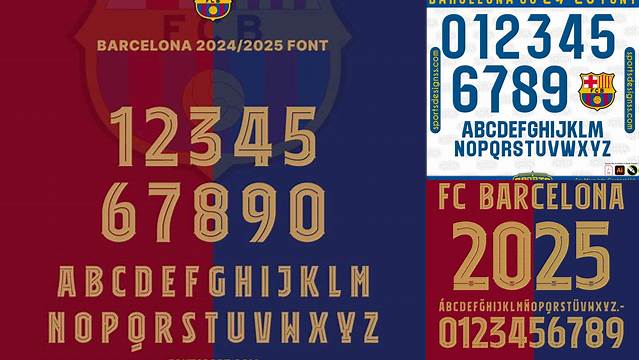
Barcelona 24/25 Font: Free Download Guide
Hey football fanatics and design enthusiasts! Are you looking to capture the iconic look of the Barcelona 24/25 season? The font used on their jerseys is a crucial part of that, and we're here to guide you through everything you need to know about getting your hands on it. This comprehensive guide will cover where you can find Barcelona 24/25 fonts for free download, explore different font styles used by the club throughout history, and delve into the specifics of the current season's font. We'll also touch on how you can use these fonts for your personal projects, ensuring you can showcase your Barça pride in style. Whether you're designing a banner, creating custom merchandise, or just want to add a touch of Barcelona to your digital creations, this article is your go-to resource. So, let's dive in and explore the world of Barcelona fonts! We'll cover everything from the basics to more advanced tips, ensuring you're well-equipped to find and use the perfect font. Let’s get started, guys!
3. Identifying the Official Barcelona 24/25 Font Style
Identifying the official Barcelona 24/25 font style is crucial if you want to replicate the authentic look of the team's jerseys. The font used on the jerseys isn't always a standard, publicly available typeface. Often, it's a custom design created specifically for the club or league. This means you might not find an exact match readily available for download. However, there are ways to get close! Start by looking for images of the official jerseys from the 24/25 season. Pay close attention to the shapes of the letters and numbers. Key features to consider include the font's weight (how thick the lines are), the presence of serifs (the small decorative strokes at the ends of letters), and the overall style (modern, classic, bold, etc.). Once you have a good visual reference, you can start searching font websites and online communities for similar fonts. You might also find fan-made versions or recreations of the official font. Keep in mind that these might not be perfect replicas, but they can still give you a similar aesthetic. And hey, sometimes a close match is good enough to capture the spirit of the team!
4. Recreating the Barcelona 24/25 Font in Design Software
So, you want to recreate the Barcelona 24/25 font in your design software, huh? That's a cool project! If you can't find the exact font for download, don't worry, you can still get pretty close by using your design software skills. Programs like Adobe Illustrator, Photoshop, and even some free alternatives like GIMP or Inkscape, have tools that let you modify existing fonts or even create your own from scratch. Start by finding a font that's similar in style to the Barcelona font. Look for things like the overall shape of the letters, the thickness of the lines, and any unique characteristics. Then, you can use the software's editing tools to tweak the font to match the official one more closely. This might involve adjusting the spacing between letters, changing the curves and angles, or adding custom details. You can also use reference images of the official font to guide your work. Trace the letters or overlay them on top of your font to see where you need to make changes. This can be a bit time-consuming, but it's a great way to learn more about typography and create a truly unique design. And when you're done, you'll have a font that perfectly captures the Barcelona spirit!
5. Alternatives to the Official Barcelona Font
Let's talk alternatives! Maybe you can't find the exact Barcelona 24/25 font or maybe you just want something a little different. No problem! There are tons of fonts out there that can give you a similar vibe. When you're looking for alternatives, think about what makes the official font unique. Is it bold and modern? Classic and elegant? Does it have any special details or serifs? Once you've identified those key features, you can start searching for fonts that share those characteristics. Websites like Google Fonts, Font Squirrel, and MyFonts are great resources for finding different typefaces. You can filter your search by style, weight, and other criteria to narrow down your options. Look for fonts that have a similar overall shape and feel to the Barcelona font. You might even find fonts that were inspired by sports typography or have a similar historical context. Don't be afraid to experiment and try out different fonts until you find one that you love. You might even discover a hidden gem that works even better than the original!
6. The History of Barcelona Fonts
The history of Barcelona fonts is actually pretty interesting! The font used on their jerseys has evolved over the years, reflecting changes in design trends and the club's branding. If you go back in time and look at old jerseys, you'll see a variety of different typefaces, from classic serifs to bold, modern sans-serif fonts. Some fonts were only used for a single season, while others stuck around for several years. Each font tells a story about the era it represents. It's cool to see how the club's identity has been expressed through typography. You can often find information about past Barcelona fonts on fan websites, design blogs, and even in books about football history. These resources might show you examples of the fonts used in different seasons, along with details about their designers and the inspiration behind them. Looking at the history of Barcelona fonts can also give you ideas for your own designs. You might be inspired by a vintage typeface or find a way to combine elements from different eras. So, next time you see an old Barcelona jersey, take a closer look at the font – it's a piece of the club's history!
7. Fonts Used in Previous Barcelona Seasons
Let's dive into the fonts used in previous Barcelona seasons, because each one has its own unique flavor! Thinking about the style of the font from, say, the 2010-2011 season compared to the 2018-2019 season can show you how much things change. The specific fonts chosen often reflect the design trends of the time, and sometimes they even become iconic in their own right. Certain classic fonts are strongly associated with particular eras of the club's history. For example, you might remember a certain font from when Barça won the Champions League or La Liga. Fans often develop a fondness for these fonts, and they can evoke a lot of nostalgia. If you're a design enthusiast, you might find it interesting to research the specific typefaces used in different seasons. Some fan websites and design blogs have compiled information about past Barcelona fonts, including details about their names, designers, and characteristics. This can be a great way to learn more about typography and the club's visual identity. Plus, you might even get inspired to incorporate some vintage elements into your own designs!
8. Where to Buy Official Barcelona Merchandise with the 24/25 Font
Alright, so you're digging the Barcelona 24/25 font and you're itching to get your hands on some official merch rocking that typeface? I get it! Nothing beats sporting the real deal. The best place to snag official Barcelona gear is usually the club's official online store or their physical stores in Barcelona. These are your go-to spots for jerseys, training gear, and other merchandise featuring the authentic font. Buying directly from the club ensures you're getting genuine products and supporting the team. You can also check out major sports retailers like Nike, Adidas, and Puma. They often carry official merchandise from top football clubs, including Barcelona. Keep an eye out for special edition items or limited-release products, as these might feature unique variations of the font or design elements. If you're looking for a bargain, you could try checking out outlet stores or online marketplaces. However, be cautious when buying from unofficial sources, as there's a risk of encountering counterfeit products. Always look for official branding and tags to make sure you're getting the real thing. And hey, wearing that jersey with the authentic font is a great way to show your Barça pride!
30. Barcelona Font and its Impact on Fan Engagement
The Barcelona font, more than just a typeface, it’s a subtle yet powerful tool for fan engagement. The font used on jerseys, merchandise, and digital platforms helps to create a consistent brand identity that resonates with fans worldwide. When fans see the familiar font, they instantly connect with the club and its history. A well-designed font can evoke emotions and create a sense of excitement and pride. The Barcelona font, in particular, is associated with the club's rich tradition, iconic players, and memorable moments. Using the font consistently across all channels – from social media to ticket designs – reinforces the club's brand and creates a cohesive experience for fans. Limited edition merchandise featuring unique variations of the font can also generate buzz and drive sales. And hey, a strong visual identity helps to build a stronger connection between the club and its fans!